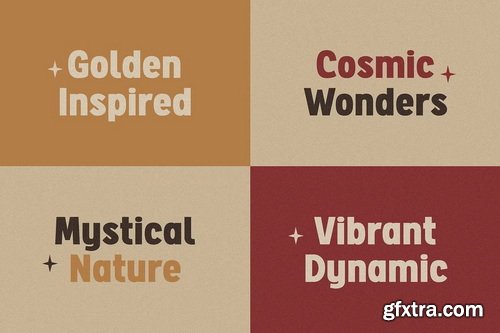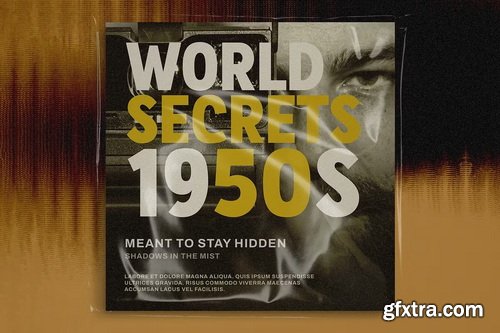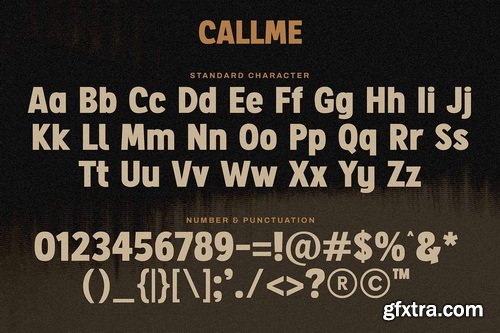
- Callme is a bold sans serif font built to make a statement. Featuring thick strokes, solid structure, and a no-nonsense appearance, this typeface is designed for bold headlines, urban advertising, impactful posters, logo, and modern visual storytelling.
- Its strong geometric forms create a confident presence across any medium—whether digital or print. With a clean and assertive tone, Callme is perfect for titles, signage, marketing campaigns, street-themed projects, and anything that needs to grab attention fast. Unlike many bold display fonts, Callme includes both uppercase and lowercase characters, giving you flexibility to create varied layouts while keeping a strong, cohesive look.